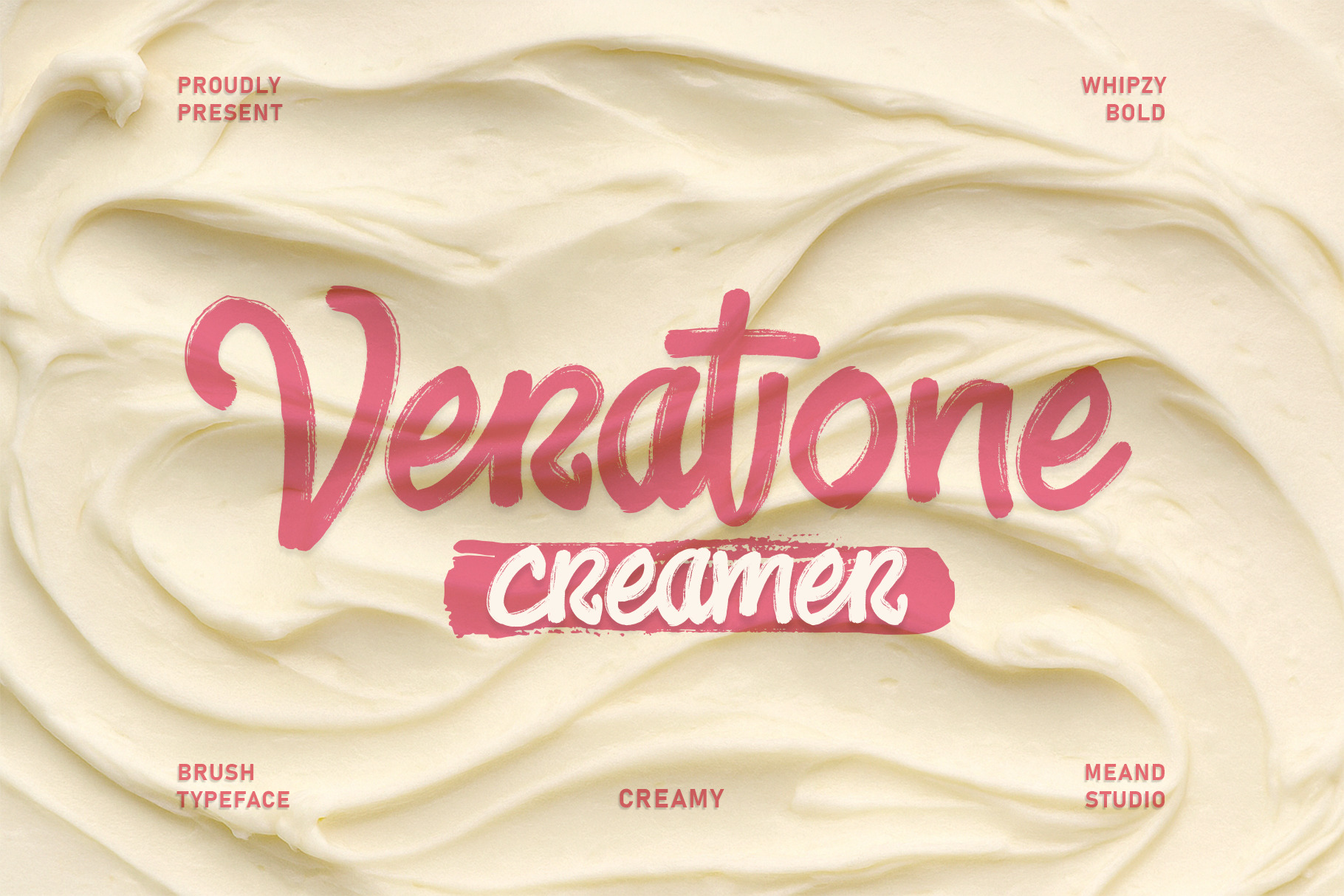
Veratone – Creamy Brush Typeface
Veratone is a creamy brush typeface designed to bring a playful yet bold personality to your projects. Its smooth strokes and hand-drawn charm make it perfect for everything from food and beverage branding, bakery logos, and café menus to social media posts, posters, and product packaging.
With a balance of bold curves and soft brush textures, Veratone gives off a warm, friendly, and inviting vibe ideal for creative industries looking to stand out with a fresh, modern feel.
Use Veratone to add a deliciously eye-catching look to your designs and let your brand shine with creamy creativity!